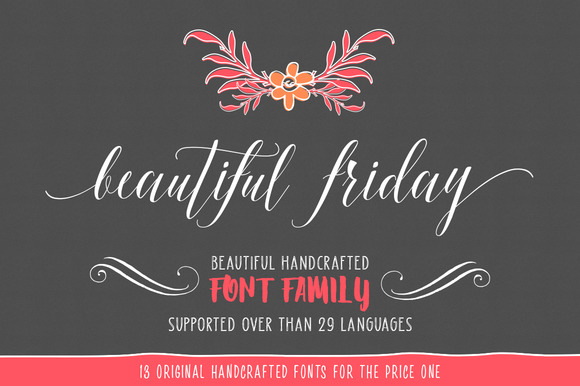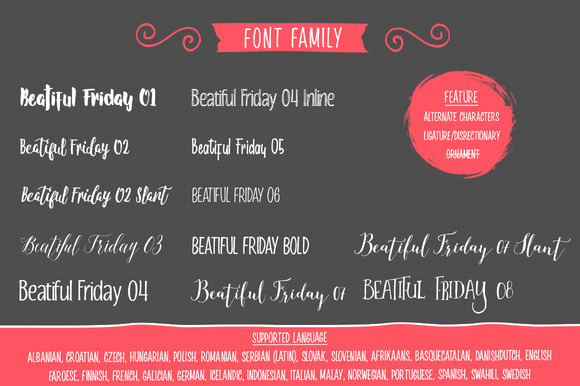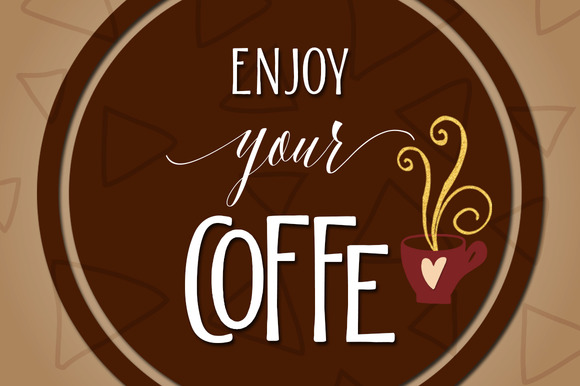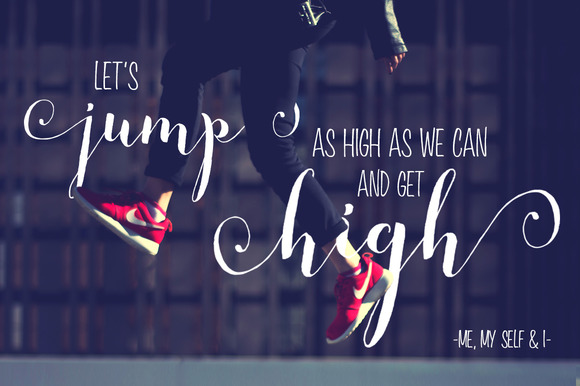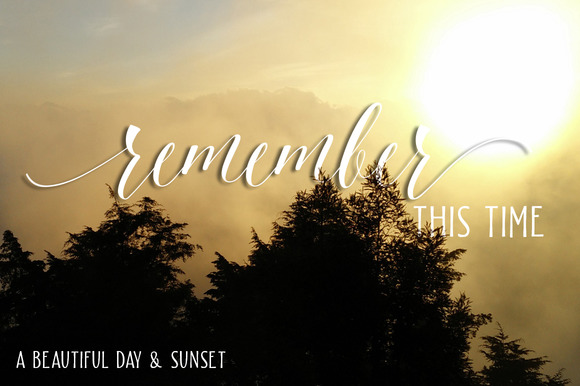
Unleash the Beauty in Your Design
Have you ever stared at a blank canvas, searching for the perfect font to bring your creative vision to life? I’m sure you have. As designers, we’ve all been there – pouring over font options, trying to find the perfect balance between elegance and impact. And then, it hits you – the perfect font that elevates your design to new heights.
Enter Beautiful Friday Font, a stunning modern typeface that’s designed to give your designs an air of sophistication and refinement. With its hand-sketched design elements and watercolor textures, this font is perfect for creating eye-catching headings, logos, and invitations that will leave a lasting impression. Whether you’re a seasoned designer or just starting out, Beautiful Friday Font is an invaluable addition to your toolkit.
Beautiful Friday Font Key Features
- Font Family: Beautiful Friday, a unique and elegant script font designed to evoke a sense of sophistication and style.
- Character Set: Supports a wide range of languages, including Latin, Cyrillic, and Greek alphabets, making it a versatile choice for global applications.
- Size: Available in 4 different font sizes: Regular (400), Italic (400), Bold (700), and Bold Italic (700), allowing for flexibility in design and layout.
- Unique Characteristics: The Beautiful Friday font features a unique blend of modern and vintage elements, with intricate flourishes and subtle texture, making it a standout choice for creative projects.
Designer Review: Beautiful Friday Font
Overall, I was quite excited to dive into the Beautiful Friday Font. The font’s designers have certainly put a lot of thought into creating a unique and playful aesthetic. ✨ One of the standout features of this font is its versatility. It works well in both digital and print applications, making it a great choice for a wide range of projects.
Another aspect that caught my attention was the font’s expressive and emotive feel. The Beautiful Friday Font is perfect for conveying a sense of energy and joy, making it ideal for branding and marketing materials. ✨ The font’s intricate details and varying weights also make it a great choice for creating visual interest and adding depth to your designs.
What I Like:
- Unique and playful aesthetic
- Versatile and works well in digital and print applications
- Expressive and emotive feel
- Great for branding and marketing materials
What I Don’t Like:
- May be difficult to read at small font sizes
- Can be overwhelming if used excessively
Overall, the Beautiful Friday Font is a great choice for designers looking to add some personality and flair to their projects. While it may have some limitations, its unique aesthetic and versatility make it a worthwhile investment.
The Beautiful Friday Font is perfect for:
- Birthday invitations and party decorations
- Business branding and marketing materials